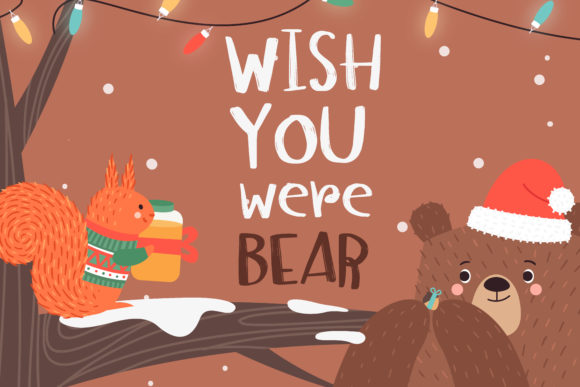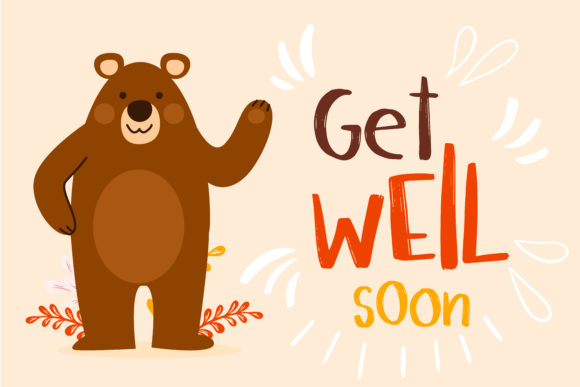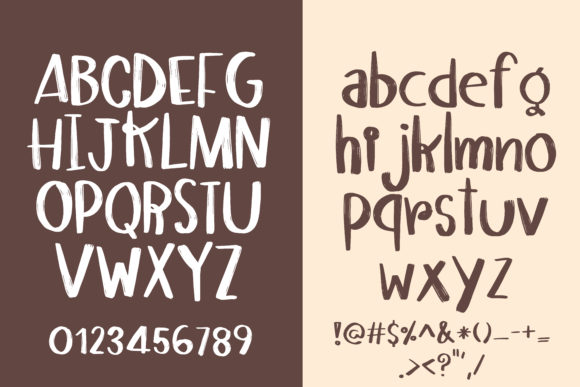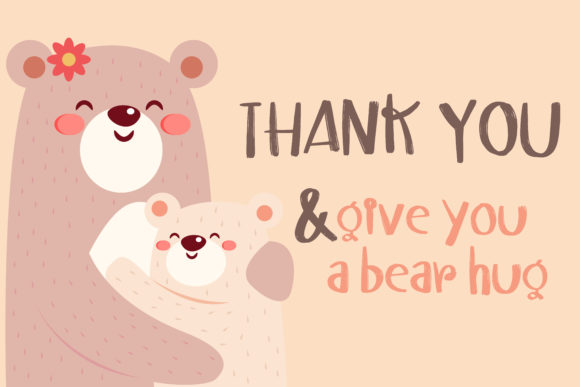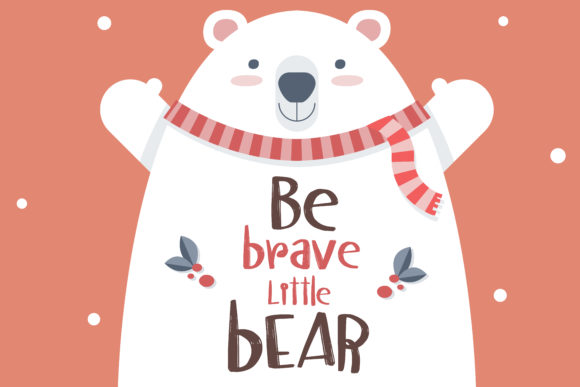
Bear in Jungle Font
About Bear in Jungle Font
Bear in Jungle is a bold and colorful handwritten font. Its friendly feel makes this font incredibly versatile, fitting a wide range of contexts. Add it to your creative ideas and notice how it makes them stand out!